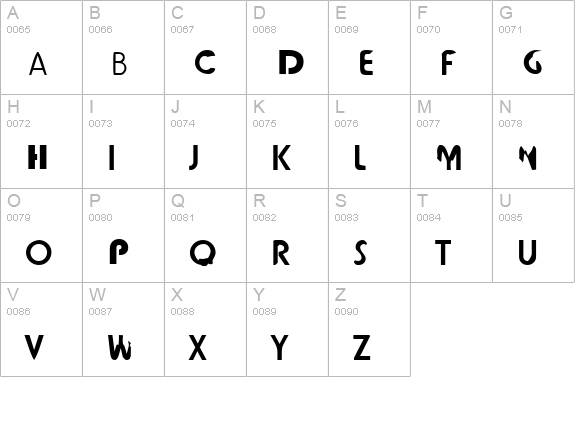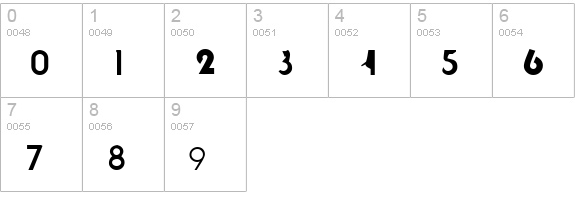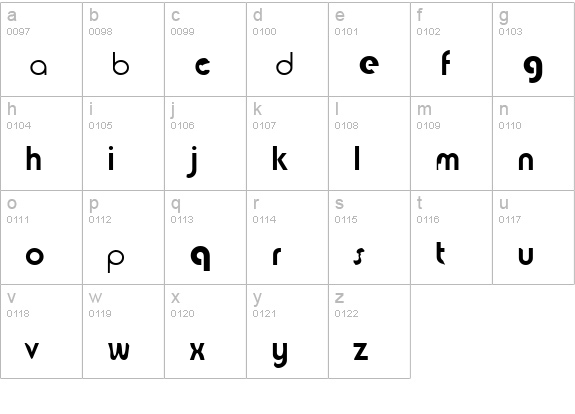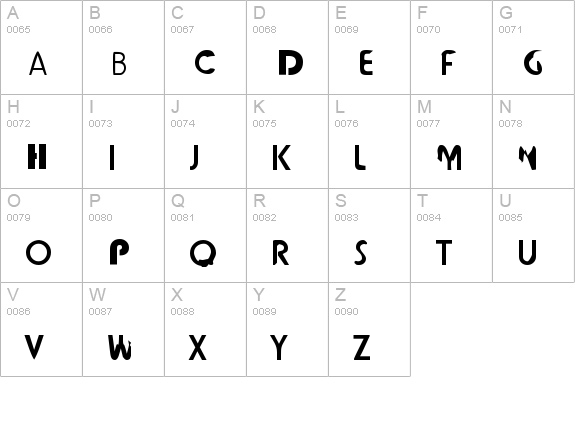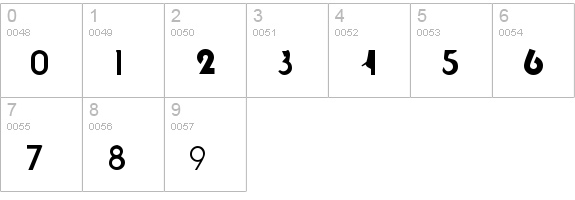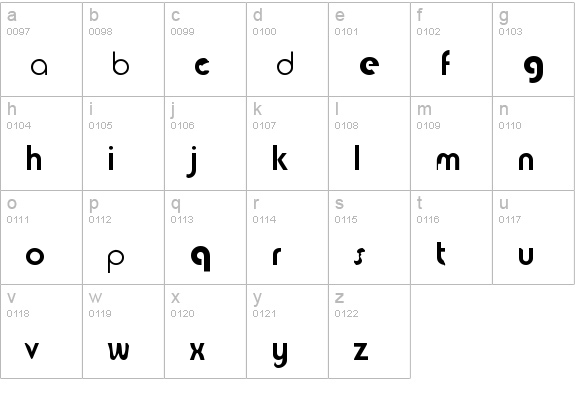
Tjockebo Font is a stunning typeface that exudes elegance and sophistication. With its bold and distinctive letterforms, it is sure to capture the attention of any reader. This font is the perfect choice for headlines, logos, and luxury branding projects. What makes Tjockebo Font even more appealing is that it is free! Yes, you read that right. This font is freely available to download at FontsMarket.com, a trusted source for high-quality fonts. Now you can add a touch of luxury to your designs without breaking the bank. Tjockebo Font is a versatile typeface that can be used in a variety of design projects. Its clean and modern appearance makes it suitable for both print and digital media. From magazine spreads to website headers, this font will make a lasting impression. The attention to detail in Tjockebo Font is truly remarkable. Each letter has been meticulously crafted to ensure a harmonious and visually pleasing result. The thick strokes and subtle curves create a sense of strength and stability, while the spacing between the letters is perfectly balanced for optimal legibility. Whether you are a graphic designer, a creative professional, or simply someone who appreciates beautiful typography, Tjockebo Font is a must-have in your font library. Its timeless appeal and free availability make it a valuable asset for any project. So why wait? Head over to FontsMarket.com and download Tjockebo Font today. Enhance your designs with this elegant and versatile typeface, and let your creativity soar.